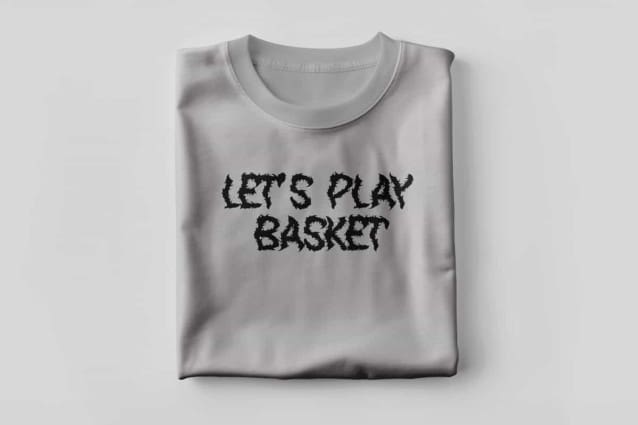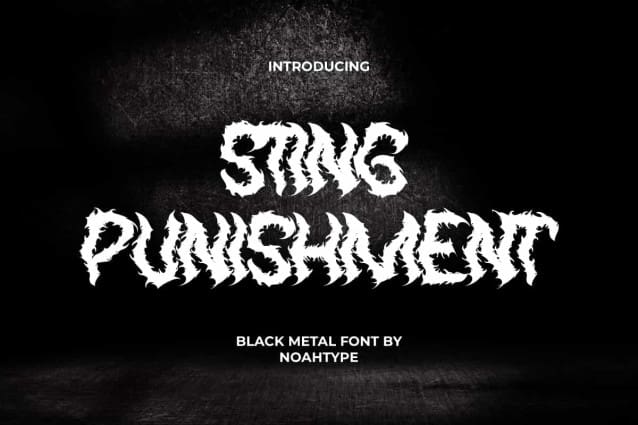
Sting Punishment Font
Sting Punishment Font is a egregious black metal font with horror style by NoahType. This font can give a goosebumps feeling to the designs you create. It will be perfect for any designs, such as brand image, custom design, invitation, label, marketing material, menu, poster, printing, product packaging, quotes, signage, website, and many more!
Sting Punishment Font includes full set of ALL CAPS for Uppercase and Lowercase Basic Characters, Numerals, Punctuation, and Symbol. This font will give awesome touch and also a perfect choice for many industries, such as accessories, advertising, art, café, fashion, game, movie, printing, publishing, etc.